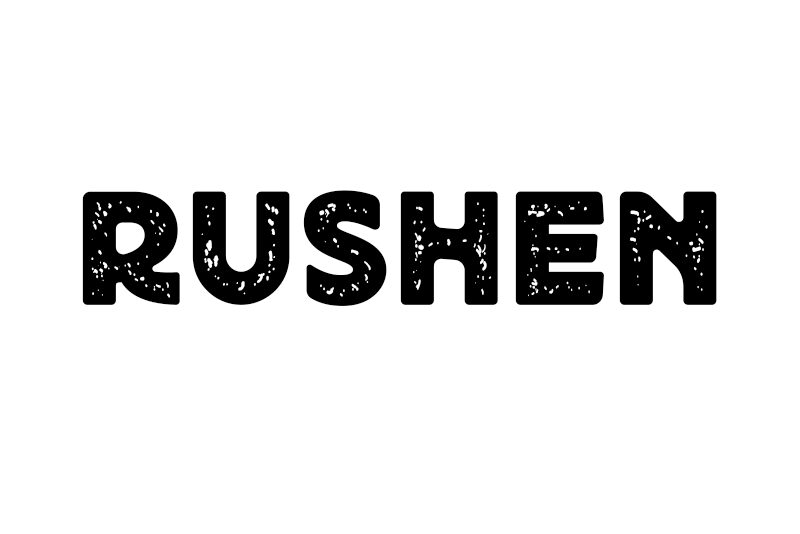
Rushen Distressed, designed by Arterfak Project, is a captivating extra-bold display font with a distinct eroded style. Its semi-expanded width adds an edgy touch to any creative project.
Perfect for album covers, concert posters, and streetwear branding, Rushen Distressed commands attention with its raw and rugged appearance. Its unique texture and bold letterforms make it ideal for vintage-inspired designs, grunge aesthetics, or any project that requires a worn-out yet powerful typography.
Let Rushen Distressed bring an authentic and rebellious vibe to your next artistic endeavor.